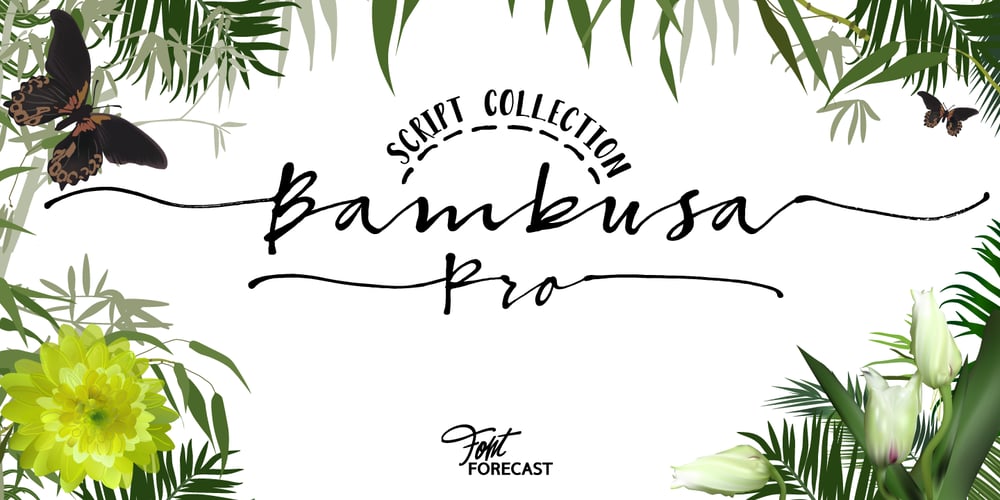
Bambusa Pro Font Family was designed by Hanneke Classen and published by Fontforecast. Bambusa Pro contains 4 styles and family package options. Bambusa Pro is a sturdy expressive modern calligraphy family of 4 fonts: Regular, Bold, Basic and Ornaments. It owes its name to the bamboo pen that was used to draw all of the characters and swashes. The typical ink-strokes of the bamboo pen give Bambusa Pro a distinctively different appearance than dip pen calligraphy fonts like Salt & Spices Pro. Similarities between the two are a wide variety of long swashes that connect to the first and last letter of a sentence or name. But with Bambusa Pro this even goes for accented characters, and all upper and lower case letters. Together with five different connecting spaces you can create phrases that look as if the pen was never lifted from the paper. Like Stylist Pro all characters of Bambusa Pro connect to each other, both lower case and upper case letters and vice versa. Bambusa Pro Basic also is hand-lettered with a bamboo pen, but is a lot more straight forward. It combines beautifully with the connected styles Regular and Bold. On top of that Bambusa Pro Ornaments offers 100+ glyphs for additional designs possibilities. Enjoy! You will need an opentype savvy application to get the most out of Bambusa Pro.